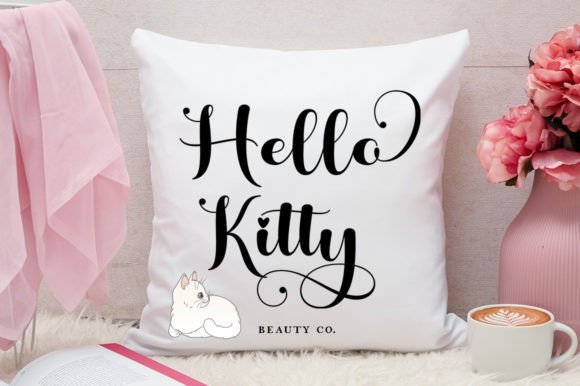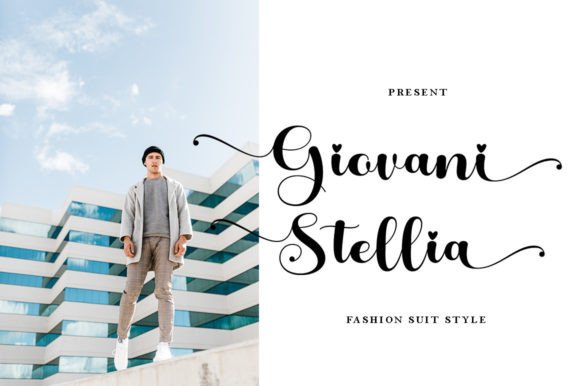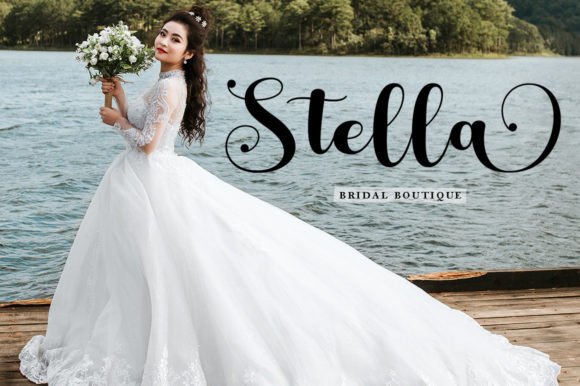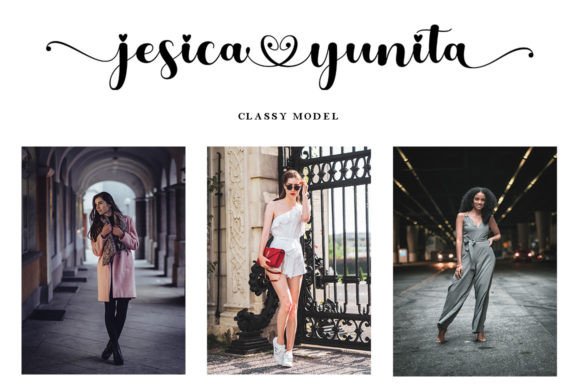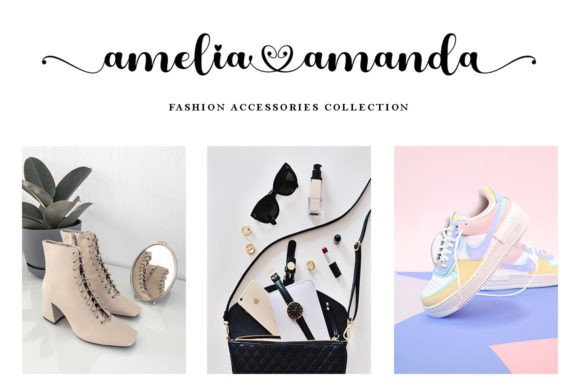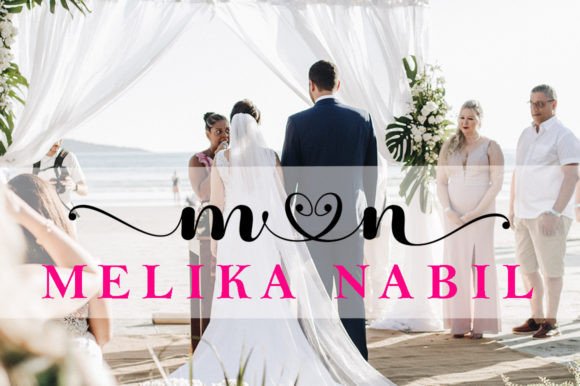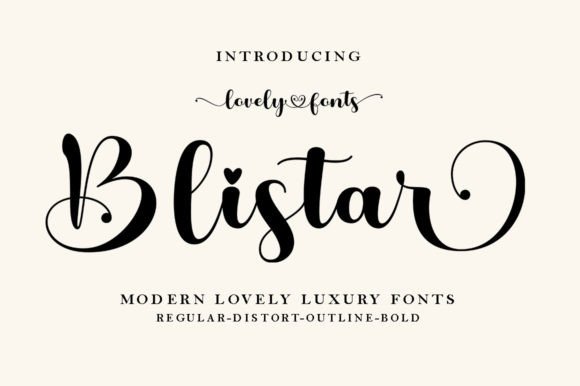
Blistar Font: A Romantic and Sweet Modern Calligraphy Typeface
Are you a designer or crafter looking for a font that exudes romance and sweetness? Look no further than the Blistar Font! This modern calligraphy typeface is perfect for projects that require a casual yet elegant touch. In this article, we’ll dive into the features and benefits of Blistar Font, and explore how it can elevate your designs.
What is Blistar Font?
Blistar Font is a romantic and sweet modern calligraphy typeface that boasts characters that dance along the baseline. Its casual yet elegant design makes it perfect for a variety of projects, from wedding invitations and branding materials to craft projects and digital designs. The font’s flowing lines and curves create a sense of movement and fluidity, adding a touch of whimsy to any design.
Key Features of Blistar Font
So, what sets Blistar Font apart from other typefaces? Here are some of its key features:
- PUA Encoded: Blistar Font is PUA (Private Use Area) encoded, which means that you can access all of the glyphs and swashes with ease. This makes it simple to create beautiful, intricate designs without having to worry about complicated coding or font mapping.
- Casual yet Elegant: Blistar Font strikes the perfect balance between casual and elegant. Its flowing lines and curves create a sense of movement and fluidity, while its classic design ensures that it remains timeless and sophisticated.
- Modern Calligraphy: Blistar Font is a true modern calligraphy typeface, with characters that are designed to look like they were written by hand. This gives it a personal, human touch that’s perfect for projects that require a bit of personality.
Benefits of Using Blistar Font
So, why should you choose Blistar Font for your next project? Here are just a few benefits of using this beautiful typeface:
- Adds a Touch of Romance: Blistar Font is perfect for projects that require a romantic touch. Its flowing lines and curves create a sense of whimsy and elegance, making it ideal for wedding invitations, love letters, and other projects that celebrate love.
- Versatile: Blistar Font is incredibly versatile, and can be used for a wide range of projects. From digital designs and branding materials to craft projects and invitations, this font is sure to become a staple in your design toolkit.
How to Use Blistar Font
So, how can you start using Blistar Font in your designs? Here are a few tips to get you started:
- Pair it with Other Fonts: Blistar Font pairs beautifully with other fonts, especially sans-serif typefaces. Try pairing it with a clean, modern font to create a stunning contrast.
- Experiment with Swashes: Blistar Font comes with a range of swashes and glyphs, so don’t be afraid to experiment. Try adding a swash to the beginning or end of a word to add a touch of elegance.
- Use it for Headings: Blistar Font is perfect for headings and titles. Its flowing lines and curves create a sense of movement and fluidity, making it ideal for projects that require a bit of drama.
In conclusion, Blistar Font is a beautiful, romantic, and sweet modern calligraphy typeface that’s perfect for designers and crafters. Its casual yet elegant design, PUA encoding, and range of swashes and glyphs make it a versatile and easy-to-use font that’s sure to become a staple in your design toolkit. Whether you’re working on a wedding invitation, branding materials, or a digital design, Blistar Font is sure to add a touch of romance and whimsy to your project.